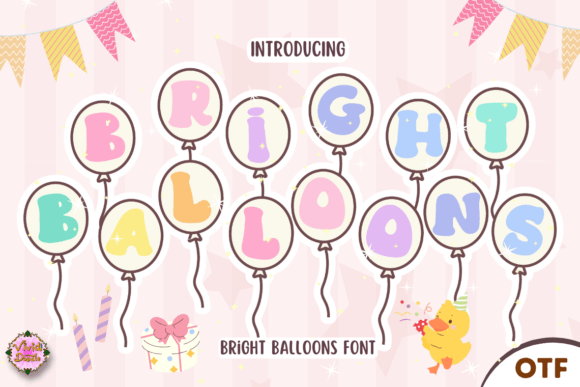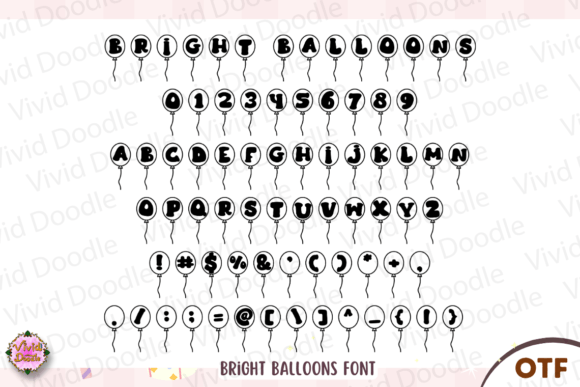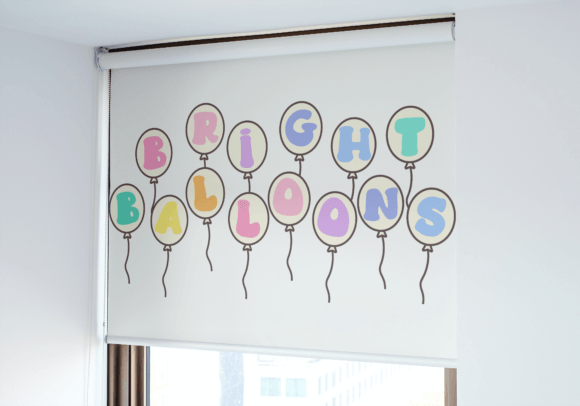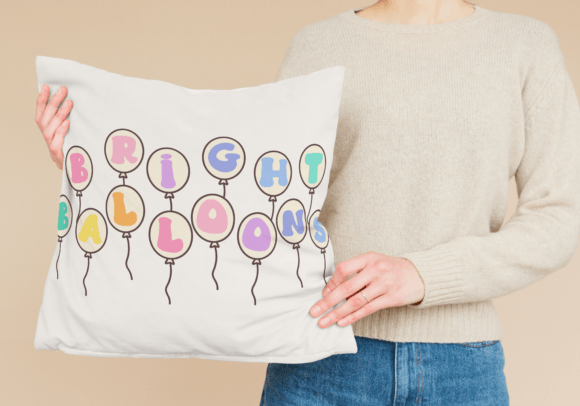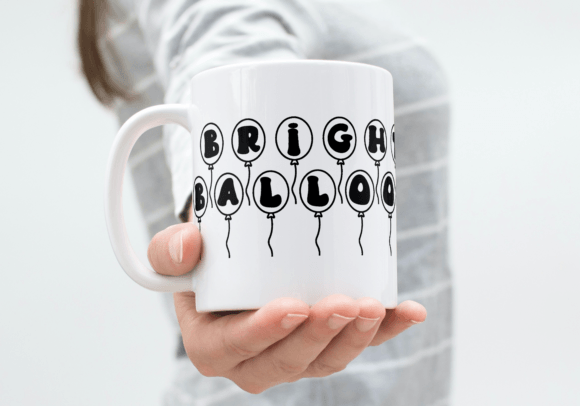
Bright Balloons Font
Introducing Bright Balloons font—a vibrant and playful typeface perfect for kids, back-to-school themes, learning adventures, birthdays, and more. Each letter is adorned with whimsical balloon designs, adding a touch of joy to your designs. Ideal for T-shirts, bags, wallpapers, crafts, DIY projects, and various creative endeavors, this font seamlessly blends a fun aesthetic with a colorful and celebratory design. Elevate your artwork with the lively allure of the Bright Balloons font, turning every project into a visually engaging and delightfully festive experience. Transform your creations into a celebration of childhood and creativity with this uniquely crafted and versatile typeface!